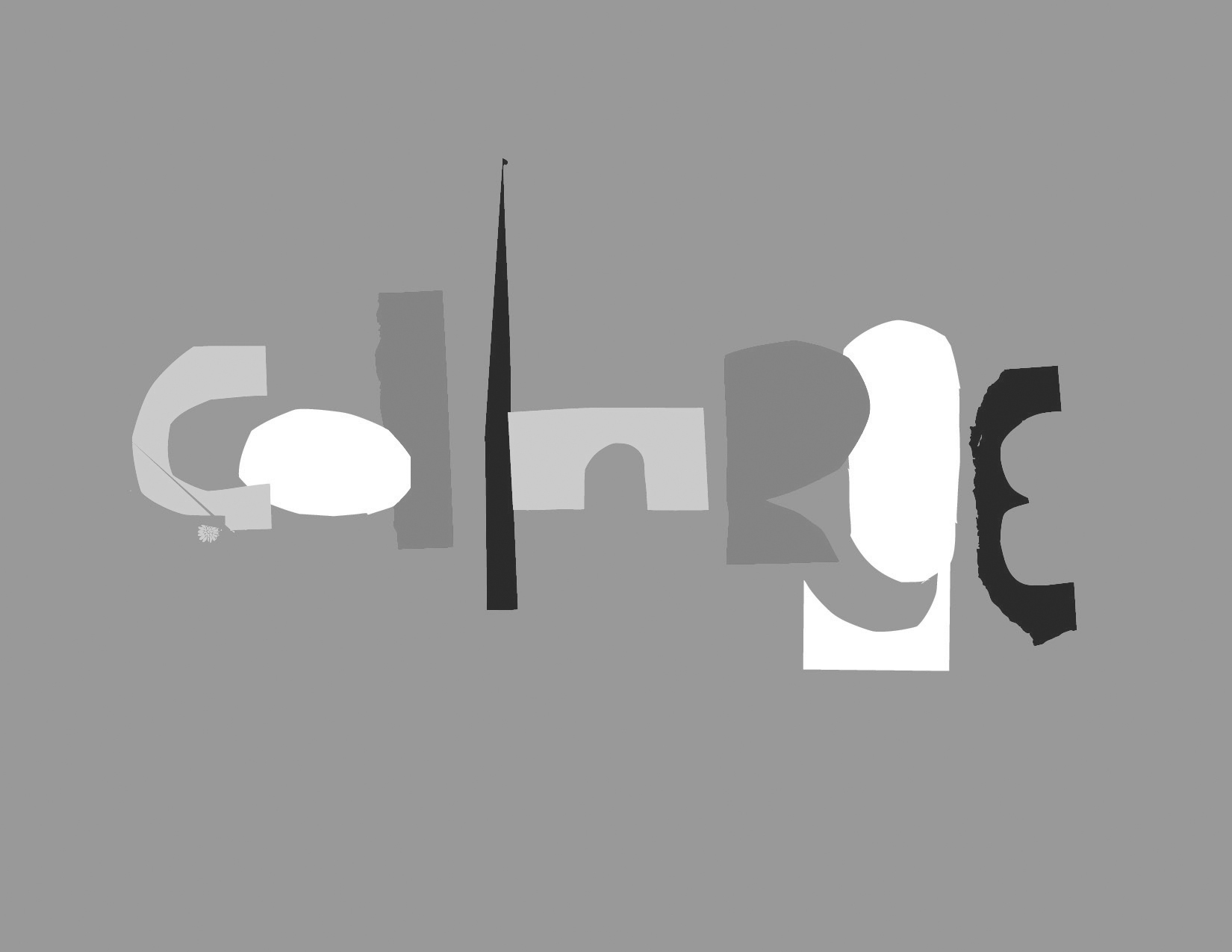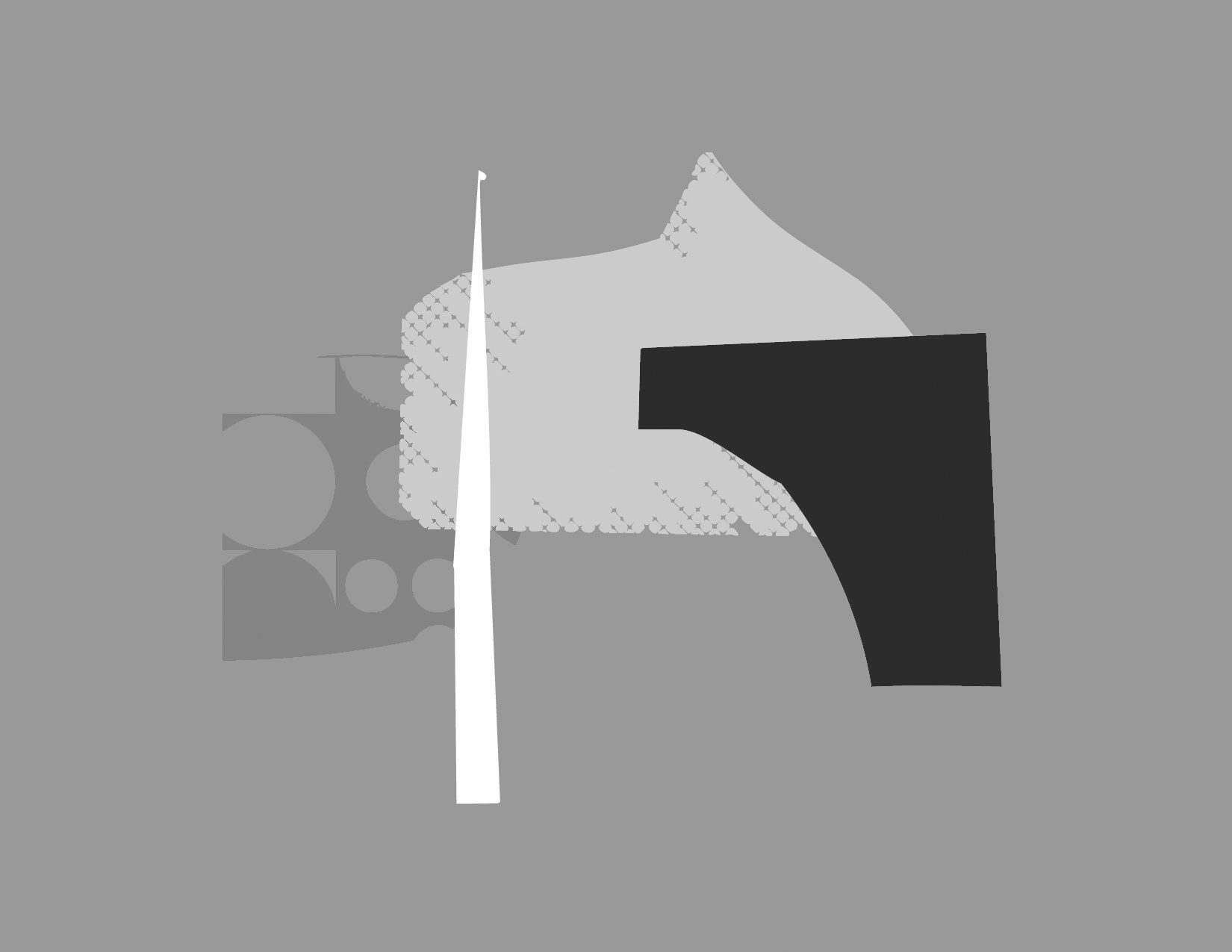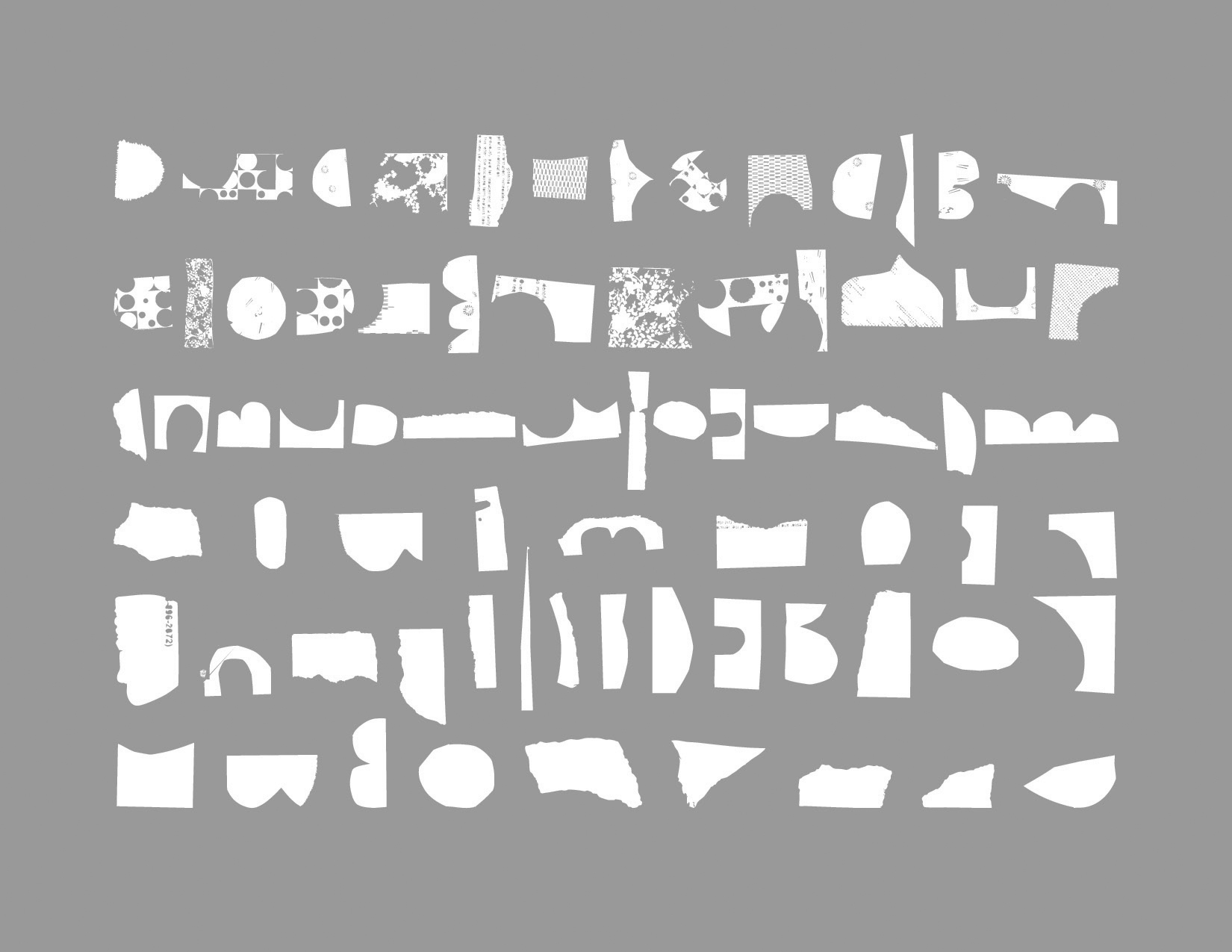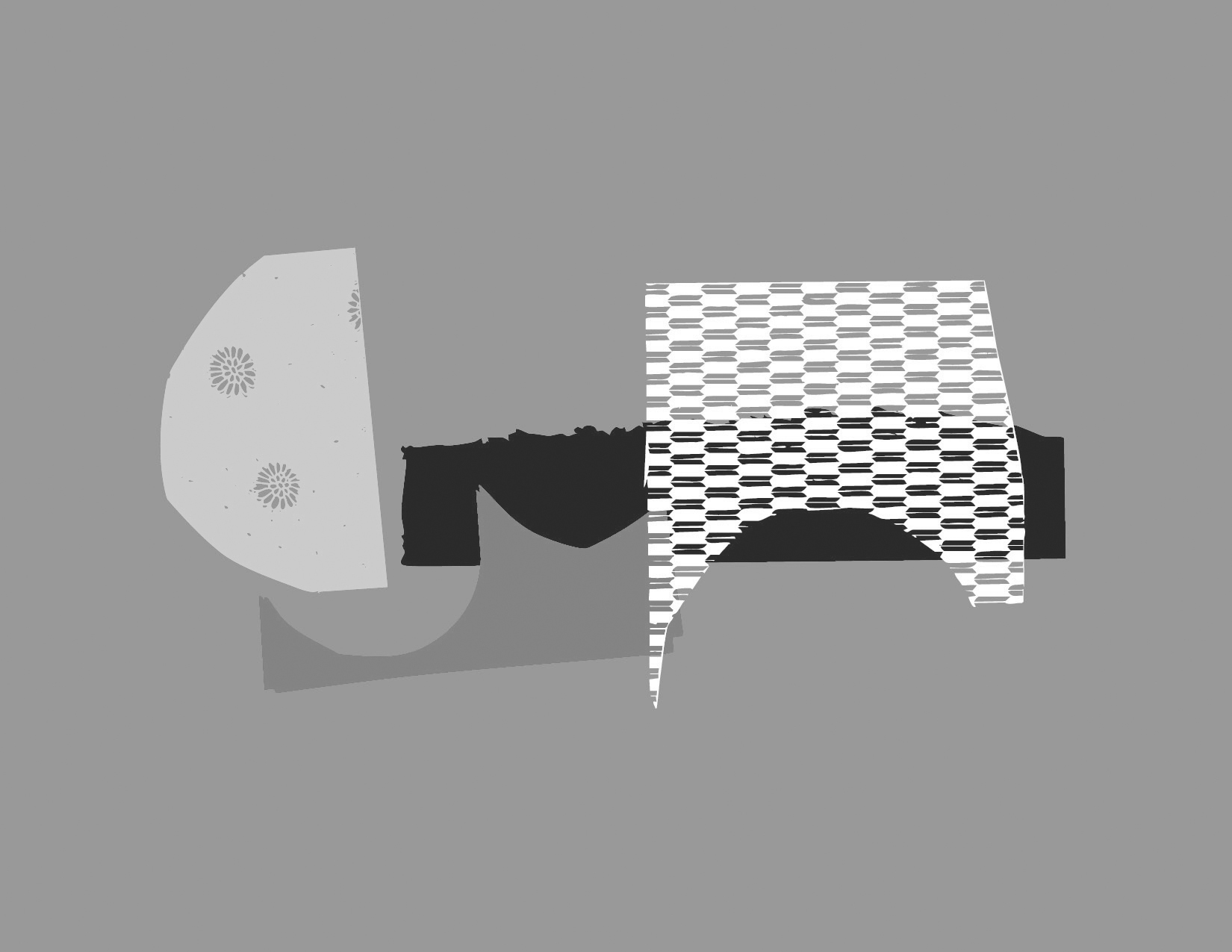
CoLLarge
CoLLarge is a dingbat conceived as an automatic alternative to a hand done collage aesthetic. Different shapes, and sizes of paper at your fingertips to over-track, outline, and fill with imagery as you see fit. Designer(s): Sean Fermoyle